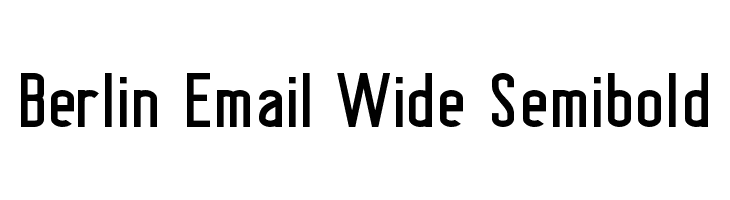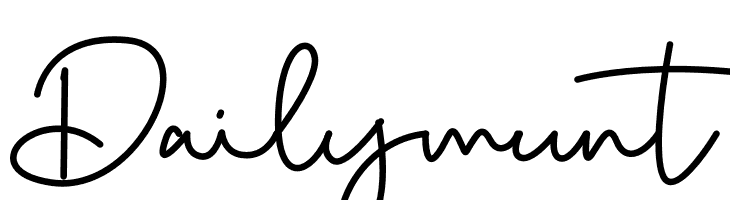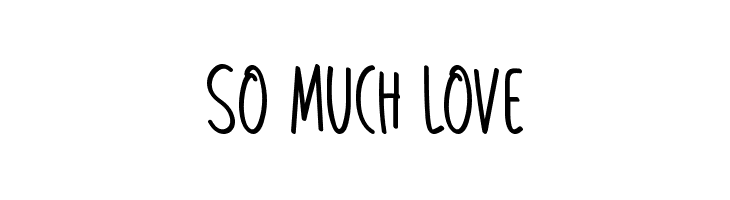
A futuristic, angular font with parallel lines and geometric shapes.
A modern, geometric sans-serif font with uniform strokes and a minimalist style.
A bold, rustic font with a distressed, vintage appearance.
A modern, rounded sans-serif font with a friendly and clean appearance.
A bold, playful font with exaggerated curves and angles, perfect for dynamic designs.
A playful, casual handwritten font with smooth curves and moderate contrast.
A bold, decorative font with a vintage, three-dimensional style.
A bold, geometric font with a futuristic and modern design.
A casual, handwritten font with a playful and informal style.
A bold, flowing script font with smooth, connected letters.